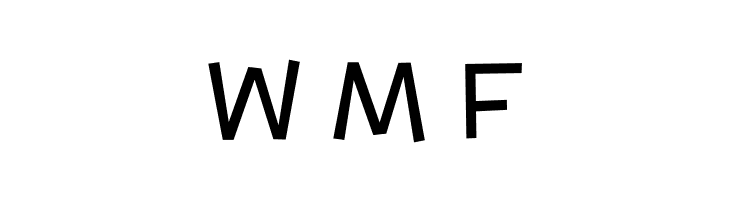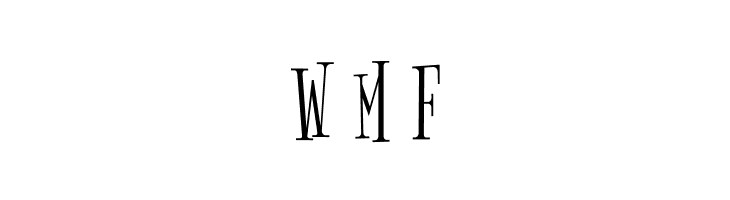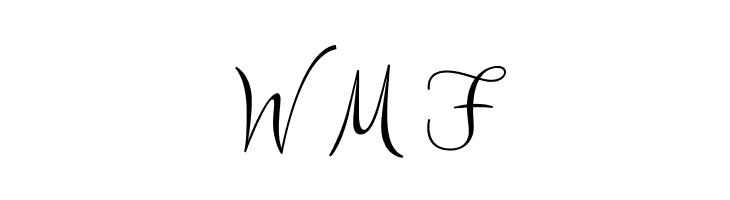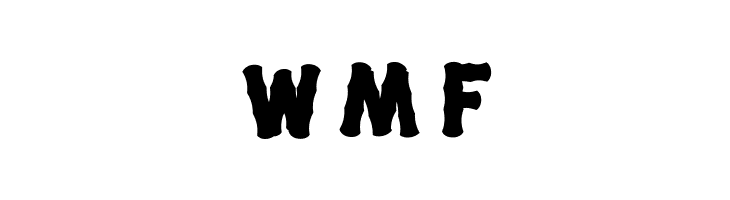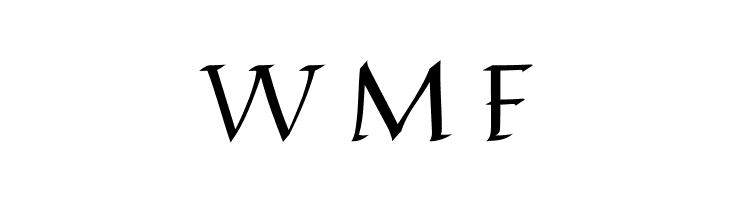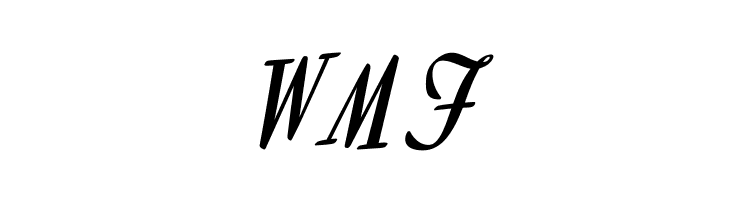
A classic serif font with high contrast and elegant, sharp serifs.
A classic, elegant serif font with moderate contrast and subtle curves.
A futuristic, geometric font with bold, rounded characters and a modern appeal.
A modern, geometric sans-serif font with balanced spacing and clear characters.
A whimsical and decorative font with exaggerated serifs and playful strokes.
An elegant, flowing script font with smooth, cursive strokes.
A bold, playful font with thick, irregular strokes and a hand-drawn appearance.
An elegant, calligraphic font with high contrast and graceful curves.
An elegant and fluid script font with a dynamic, cursive style.